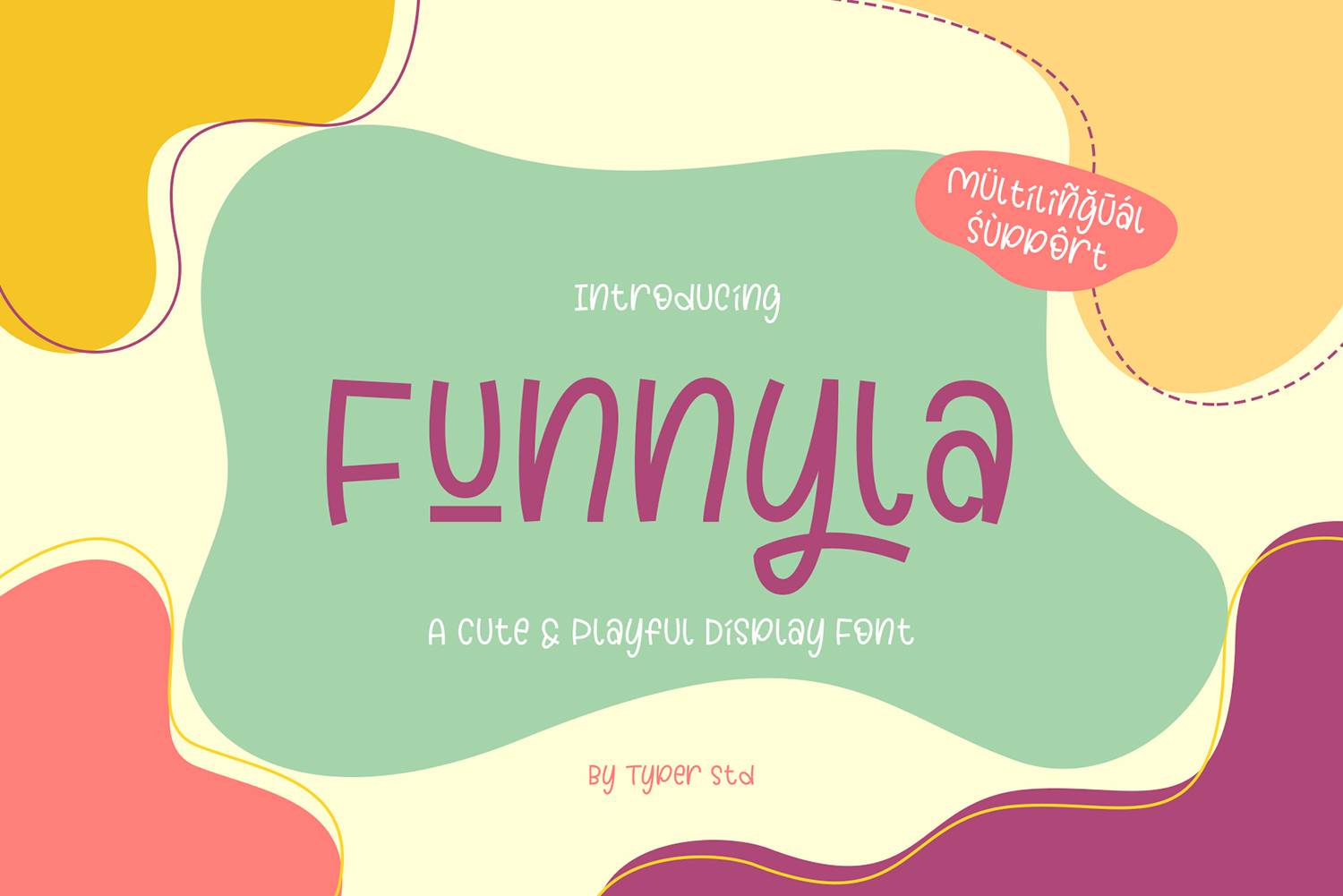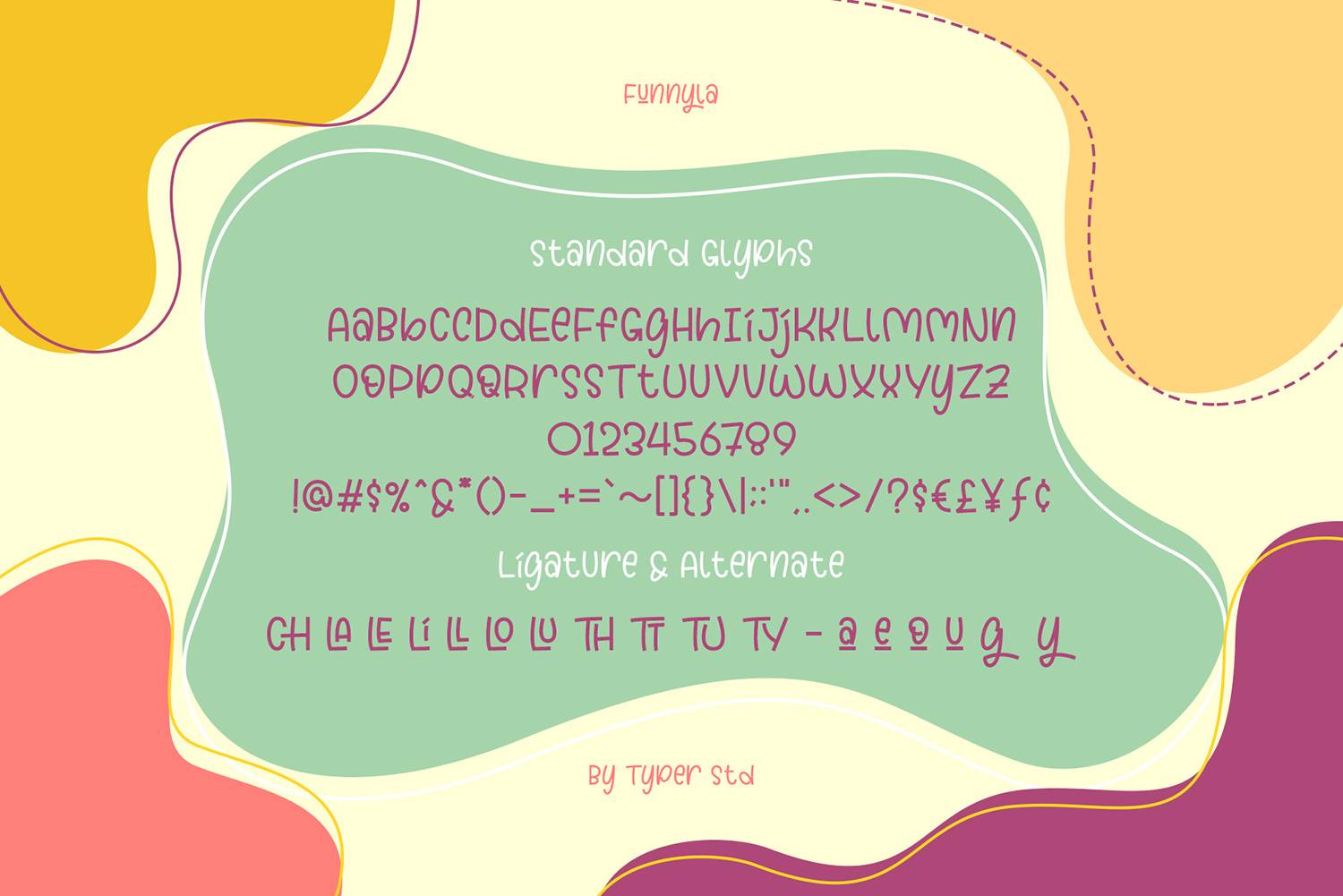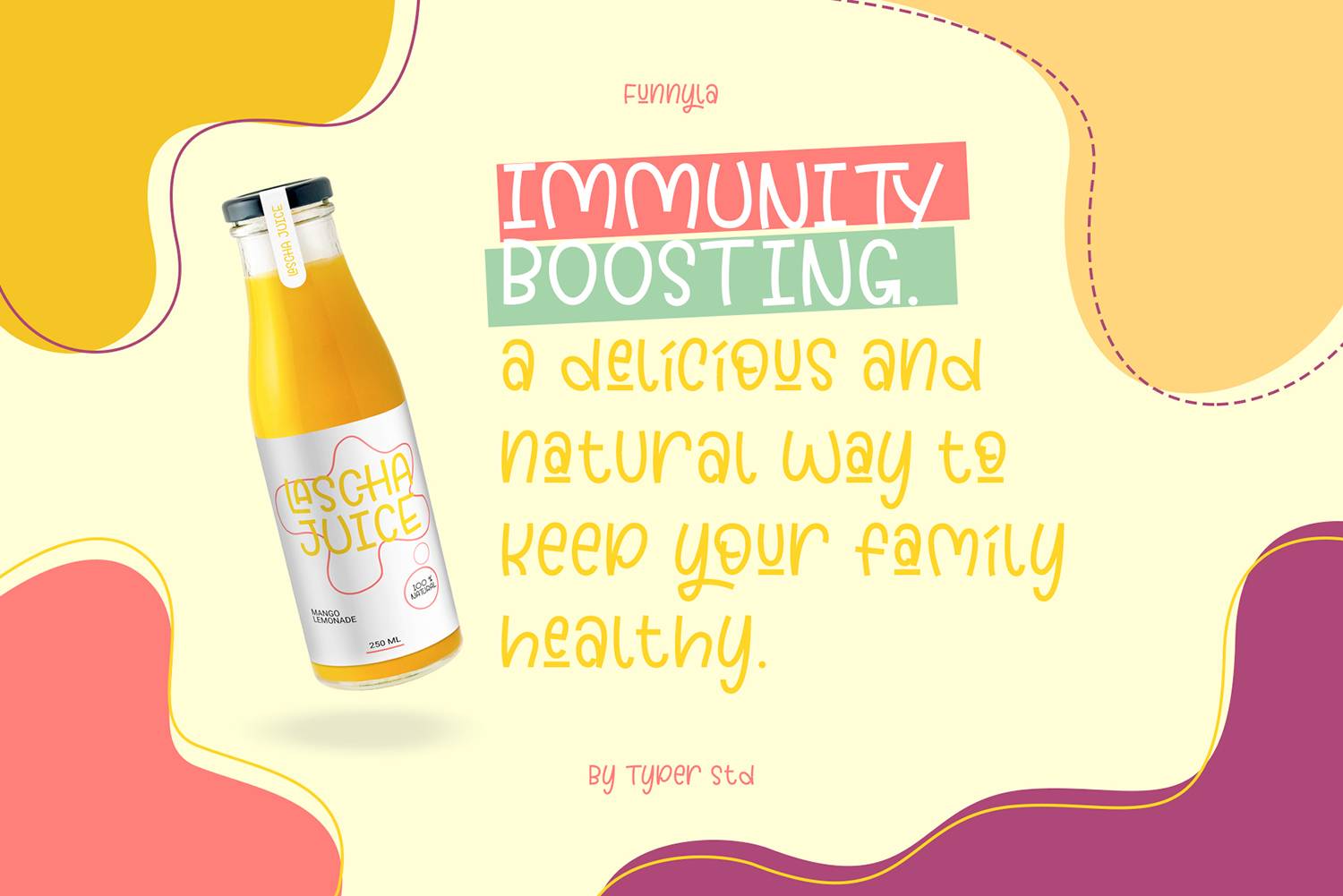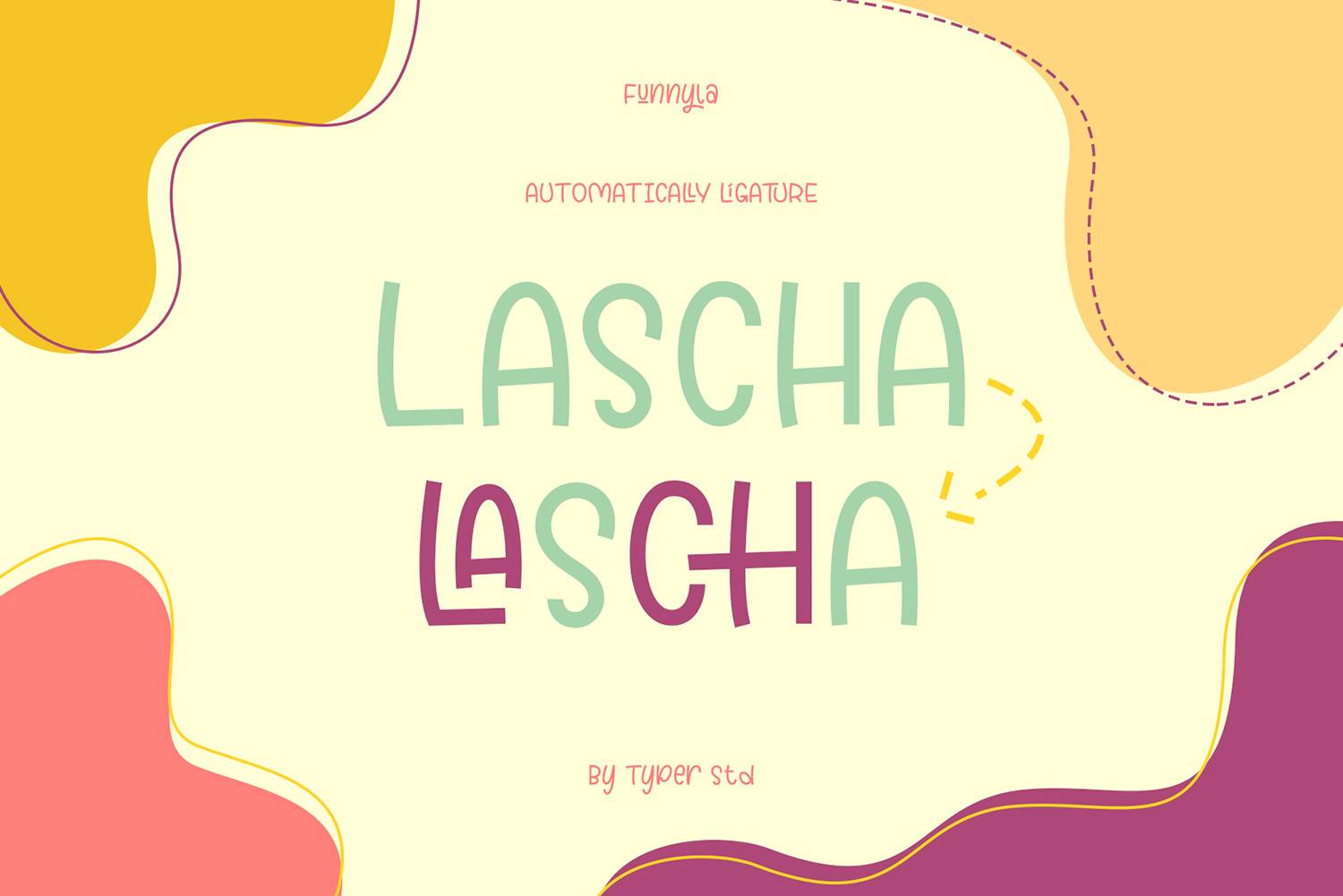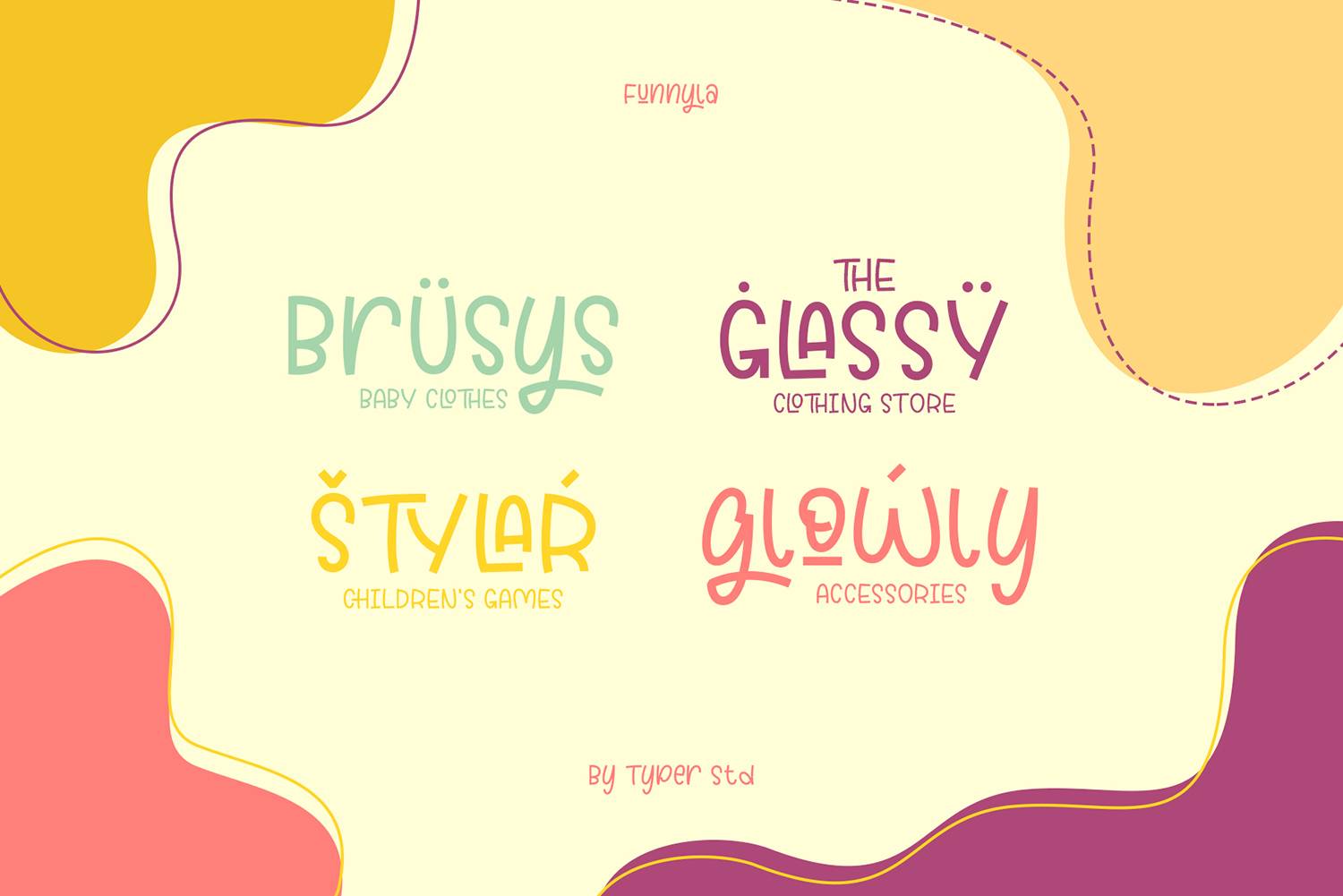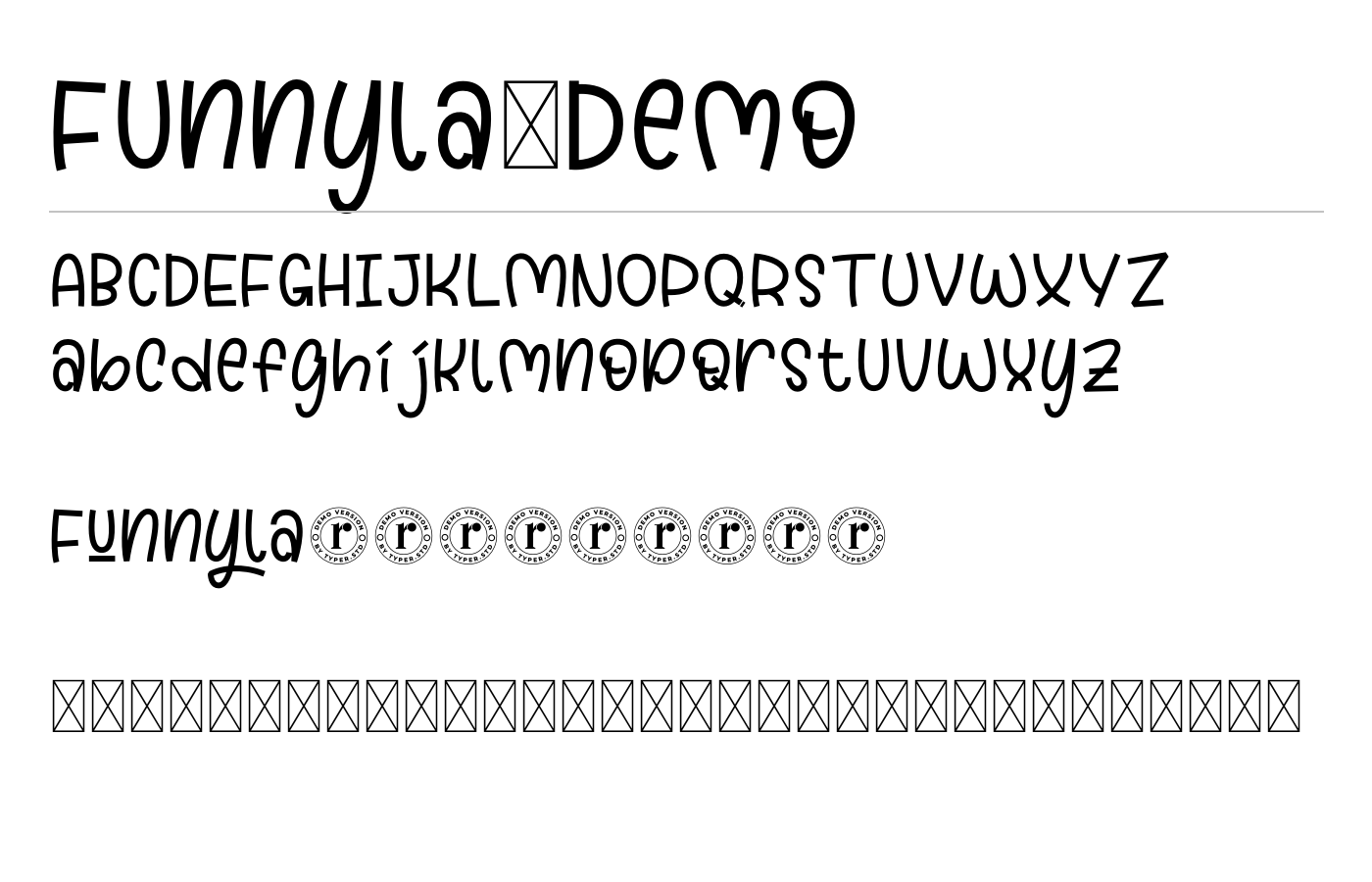
Funnyla is a playful, quirky sans serif font with a casual and hand-drawn feel, featuring irregular shapes and lively curves. Its light weight and tall x-height make it friendly and approachable, perfect for creative projects, children's books, or fun branding that wants to convey a sense of whimsy and uniqueness. This font shines in headlines and logos where a personal, informal touch is desired.